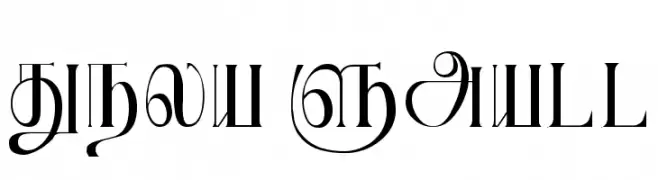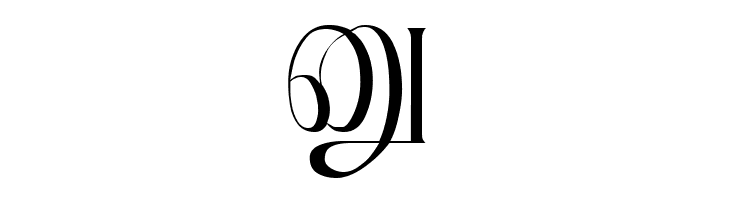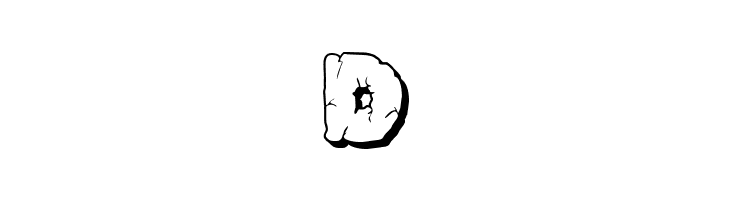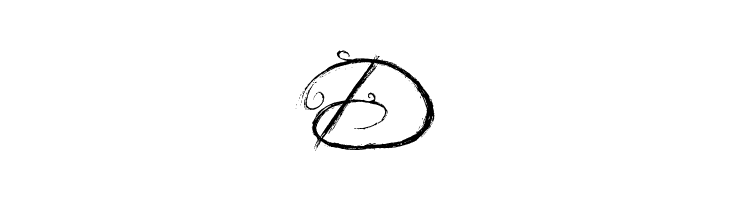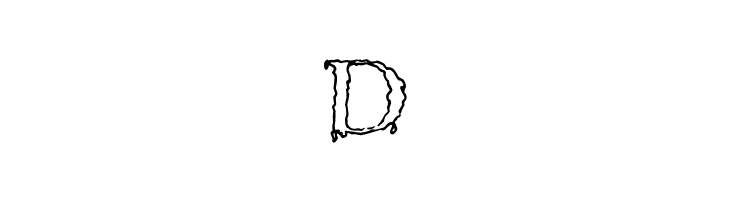
• Jellyka King's Hat
• Jerika
( Fonts by Letterena Studios )
Playful handwritten font with smooth flow.
• Jet Black Night
( Matias Romero - matiasromero.deviantart.com )
A bold, geometric font with sharp angles and a modern aesthetic.
• Jeya Small
• JFJungleRock
( Fonts by Jester Font Studio )
A decorative, jungle-themed font with bold letters and intricate foliage designs.
• JFRockOutcrop
( Fonts by Jester Font Studio )
A bold, textured font with a rocky, natural appearance.
• JFRockSolid
( Fonts by Jester Font Studio )
A bold, textured font with a rugged, stone-like appearance.
• JFSnowbiz
( Fonts by Jester Font Studio )
A whimsical snowman-themed font with bold, clear characters.
• Jigsaw
• Jinkeez Out
( Fonts by Jeff Bensch )
A whimsical, hand-drawn decorative font with wavy outlines.